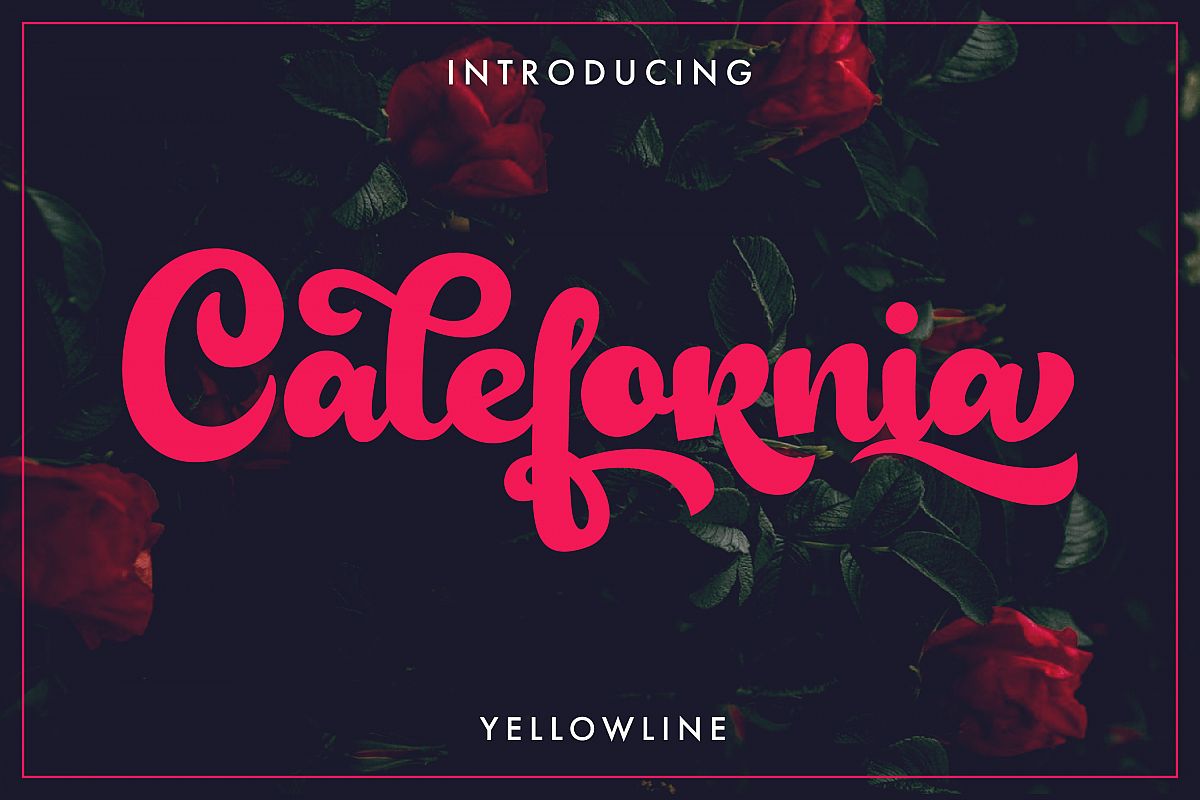
Calefornia Bold Script
Calefornia
is bold script font. The font is equipped with opentype features. Which
is including alternative character each lowercase letters.